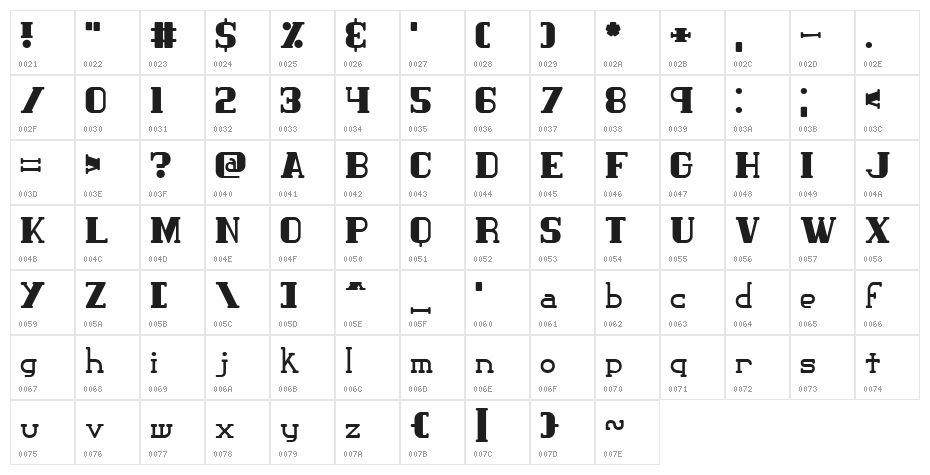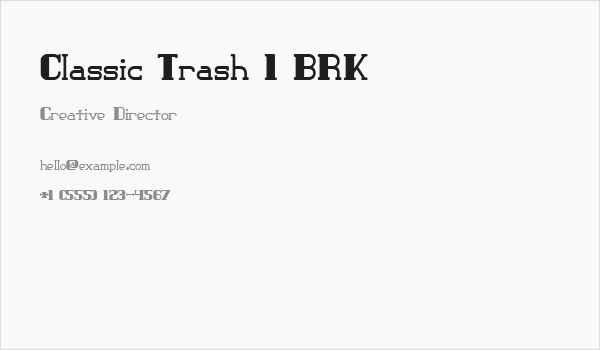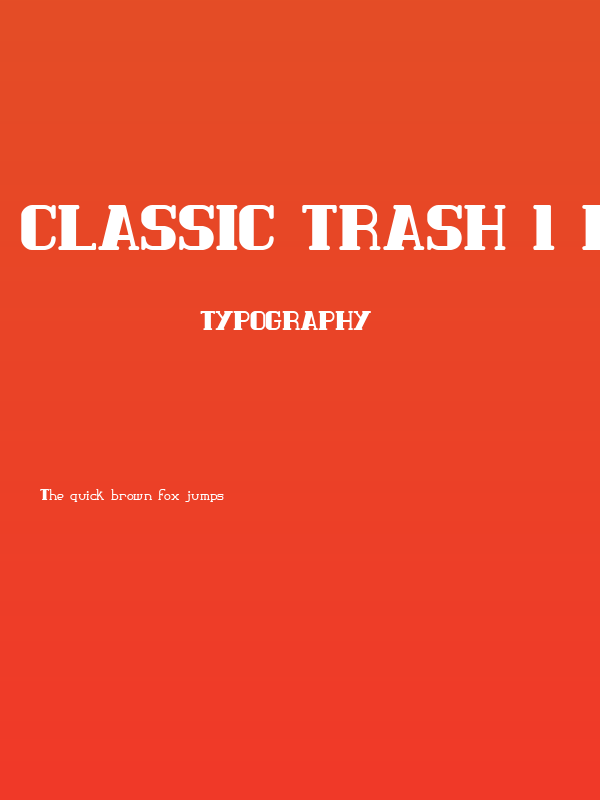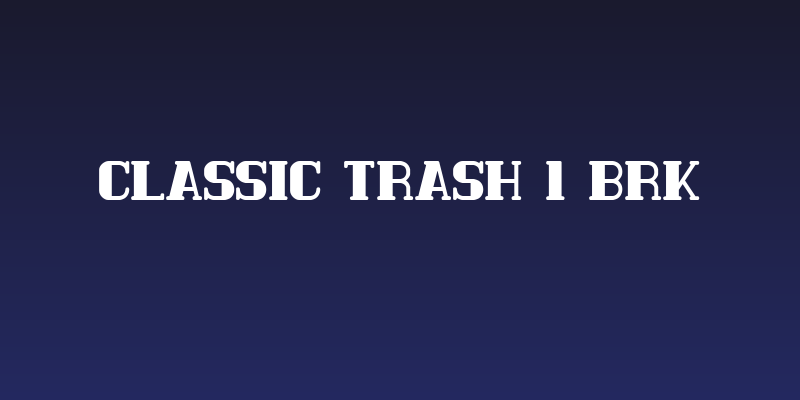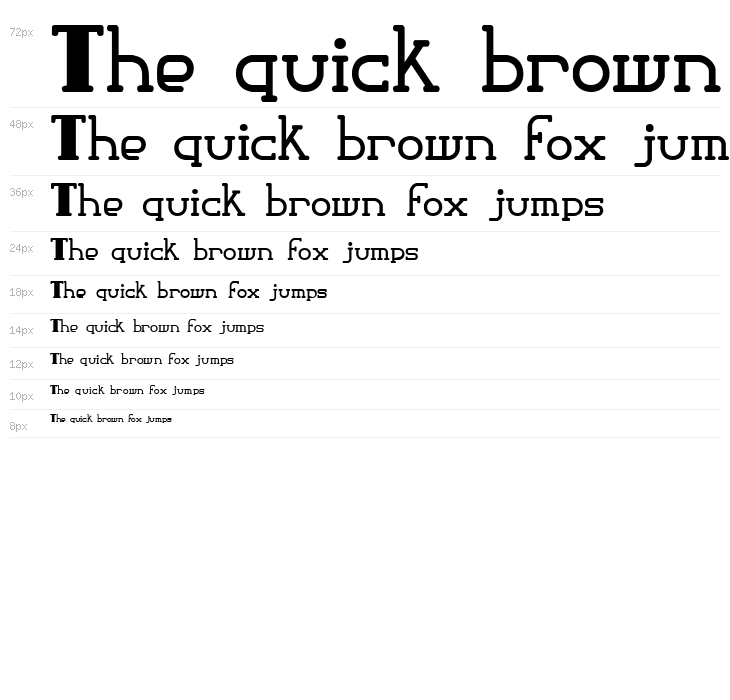
Classic Trash 1 BRK Font
Classic Trash 1 BRK Description
This font features a bold and distinctive style with a vintage flair. The uppercase letters are robust and have a strong presence, characterized by thick strokes and unique cutouts that give them a slightly industrial feel. The lowercase letters maintain a consistent style, with rounded edges and a playful yet structured appearance. The numbers are equally bold, with a uniform thickness that ensures readability. Special characters are creatively designed, adding to the font's overall decorative appeal. This font is well-suited for projects that require a touch of retro charm combined with modern boldness.
| Proposed Projects | Ideal for posters, branding, packaging, and any design needing a retro yet bold statement. |